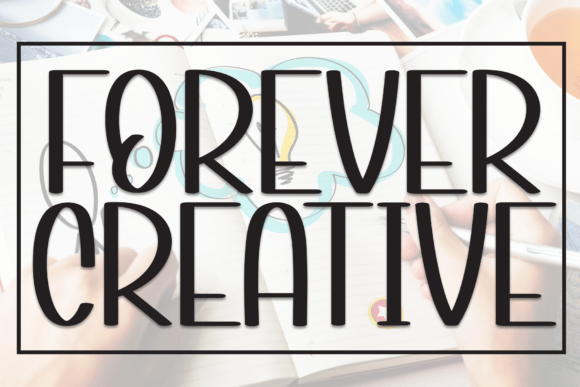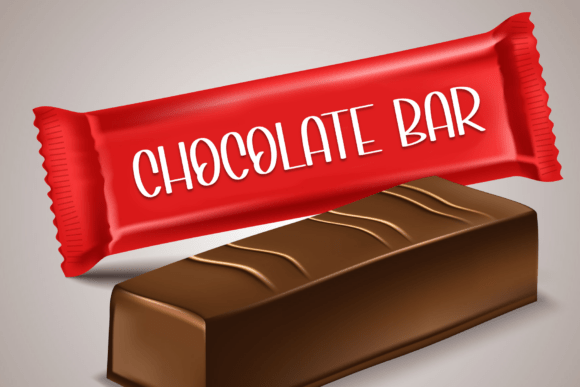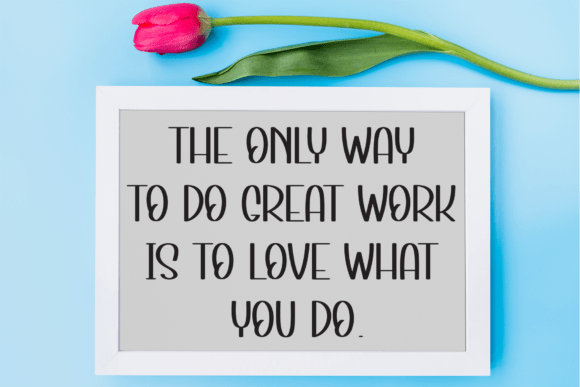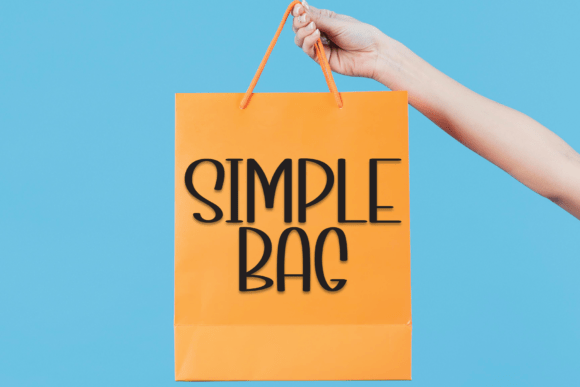
Forever Creative Font
About the Forever Creative Font
Discover the charm of Forever Creative Font. This font is a perfect blend of modern aesthetics and classic appeal. This handwritten display font brings charm and character to every letter. With its playful strokes and casual flow, it captures the essence of authentic handwriting—perfect for quotes, greeting cards, branding, and anything that needs a personal, heartfelt touch. Whether you’re crafting for kids or designing a modern logo, this font adds warmth and whimsy to your work.
Forever Creative Font excels in headlines, short taglines, and logos where its playful energy can shine. It’s ideal for projects targeting a young, friendly audience, such as children’s books, craft-related businesses, or social media campaigns needing a handmade feel. Avoid using it for large blocks of text or body copy; its informal nature makes it unsuitable for readability in extended paragraphs or UI elements.
Pairing it with a clean sans-serif like Open Sans for body text creates a strong contrast, balancing its whimsical strokes with a modern, legible counterpart. For a more sophisticated look, consider pairing it with a classic serif like Garamond or a delicate script font like Lora for invitations or branding materials requiring a touch of elegance.
The font’s core personality is undeniably playful and friendly, yet retains a level of sophistication suitable for various branding applications. Its casual charm adds a unique, handcrafted touch, best suited for projects that prioritize approachability and warmth.
Forever Creative Font Usage Examples
Forever Creative Font Example